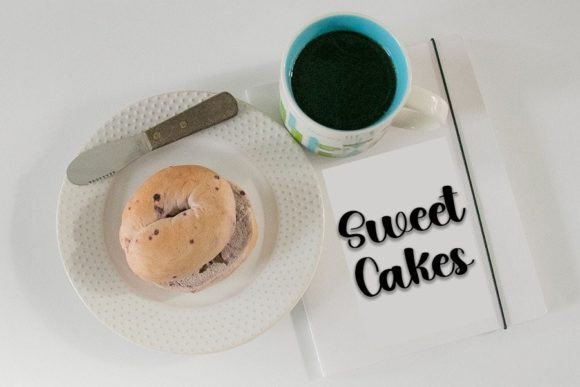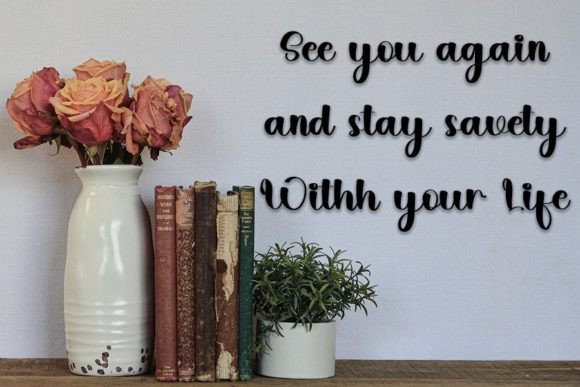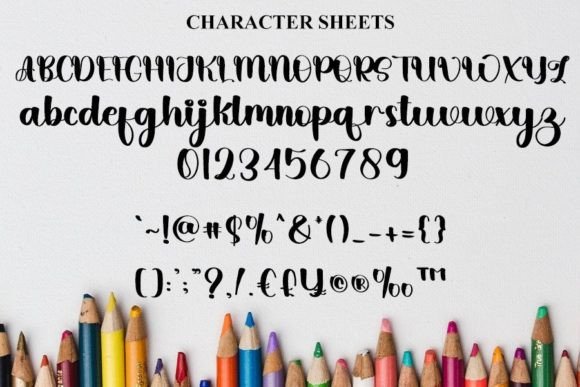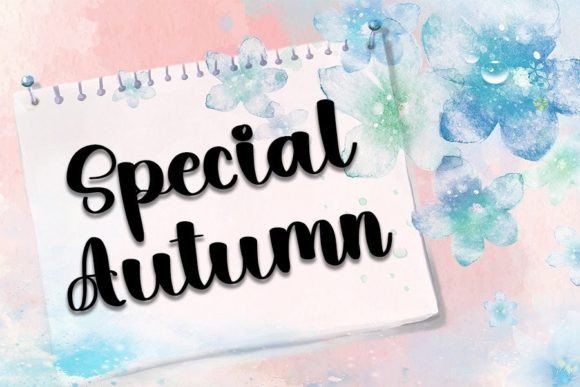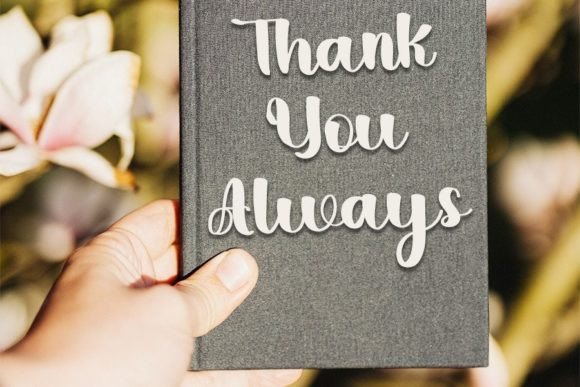
Introducing Article Font: Elevate Your Designs with Timeless Elegance
In the world of typography, a well-crafted font can make all the difference in elevating your designs from ordinary to extraordinary. For designers and crafters seeking a stylish and sophisticated touch, Article Font is an exceptional choice. This stunning handwritten font boasts a contemporary atmosphere and impeccable form, drawing inspiration from timeless classic calligraphy.
The Inspiration Behind Article Font
Article Font is a masterful blend of traditional and modern elements, carefully crafted to bring a sense of balance and variation to your projects. The font’s creator drew inspiration from the elegance of classic calligraphy, infusing it with a fresh and modern twist. The result is a font that exudes sophistication and refinement, perfect for designers seeking to add a touch of luxury to their work.
Key Features of Article Font
- Handwritten with a contemporary twist: Article Font boasts a beautiful, handwritten aesthetic with a modern edge, making it perfect for a wide range of design applications.
- Balanced and varied: The font’s careful balance and variation ensure that your text remains legible and visually appealing, even at smaller sizes.
- Timeless classic calligraphy inspiration: Article Font’s roots in traditional calligraphy provide a sense of timelessness and sophistication, allowing your designs to stand the test of time.
- Impeccable form: Every letterform has been meticulously crafted to ensure a high level of legibility and aesthetic appeal.
Article Font’s versatility makes it an excellent choice for a wide range of design projects, including:
- Branding and logos: Create a lasting impression with a custom logo that showcases your brand’s personality and style.
- Wedding and event invitations: Add a touch of elegance and sophistication to your special occasion invitations.
- Packaging and product design: Elevate your product’s packaging with a beautiful, eye-catching font that sets your brand apart.
- Stationery and greeting cards: Create beautiful, professional-looking stationery and greeting cards that showcase your personal style.
Tips for Using Article Font Effectively
To get the most out of Article Font, consider the following tips:
- Pair with contrasting fonts: Combine Article Font with a contrasting font to create visual interest and add depth to your design.
- Experiment with font sizes: Take advantage of Article Font’s legibility at various sizes to create a visually appealing hierarchy of text.
- Pay attention to spacing: Ensure that your text has sufficient spacing to maintain readability and prevent overcrowding.
Article Font is a stunning, stylish handwritten font that brings a touch of timeless elegance to your designs. With its impeccable form, balanced and varied aesthetic, and inspiration from classic calligraphy, this font is sure to elevate your projects to new heights. Whether you’re a designer, crafter, or DIY enthusiast, Article Font is an excellent choice for anyone seeking to add a touch of sophistication and refinement to their work.